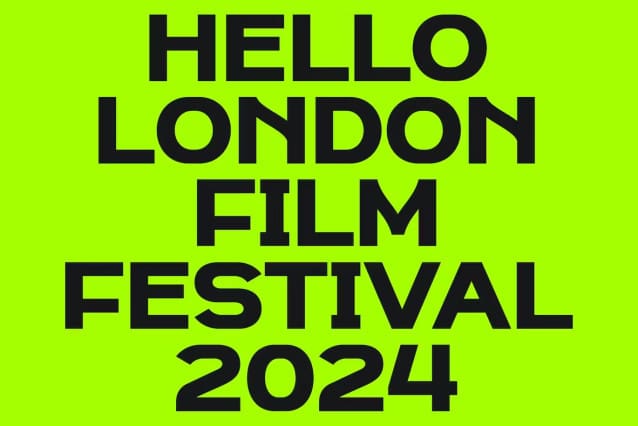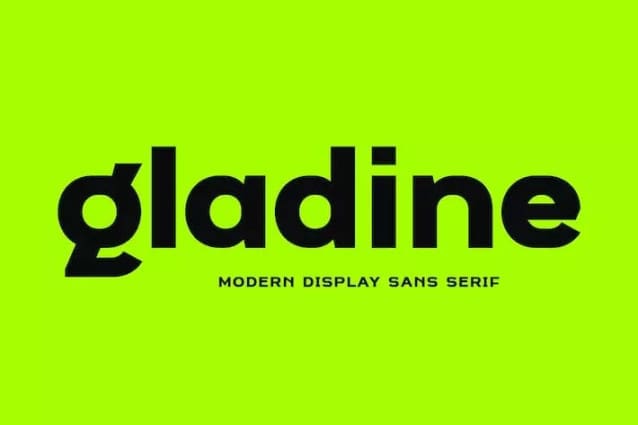
Gladine Font
Gladine Font – Modern Display Sans Serif. Gladine is a modern and simple font, best used as a display for headings, logos, branding, magazines, product packaging and invitations.